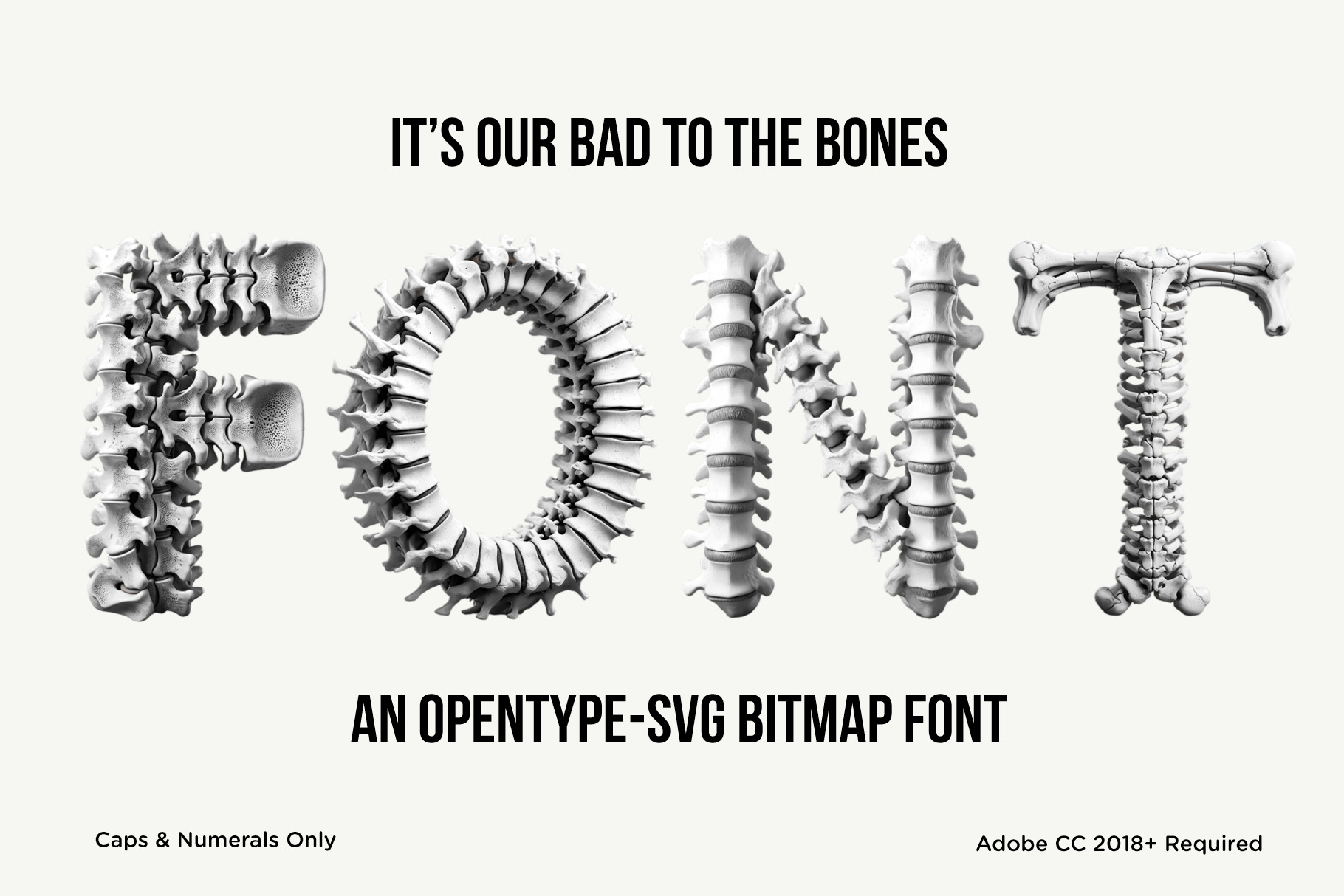
Bones 3D Font
Bones is a bold 3D display font built from weathered, photorealistic bone textures. Each letter is sculpted with depth, cracks, and subtle shading for a tactile, organic look — perfect for dark designs, Halloween themes, vintage posters, heavy branding, or anything that needs a gritty edge.
This OpenType-SVG bitmap font includes uppercase letters and numerals only. Each glyph features a high-resolution bone texture baked directly into the font file, giving it a raw, hand-crafted realism ideal for large display use such as titles, apparel, signage, and album covers.